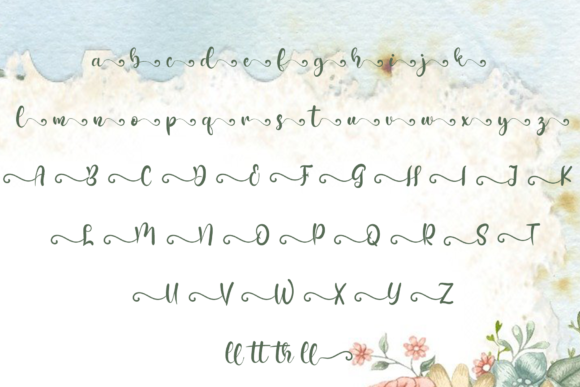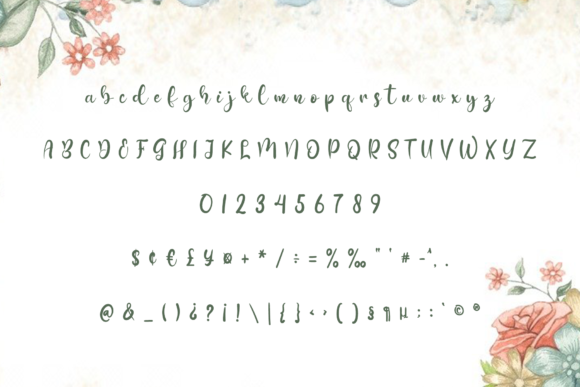
Babydoll Font
db-ku.com - Script & Handwritten -- Babydoll is a cursive and romantic script font. This font is PUA encoded which means you can access all of the glyphs and swashes with ease!